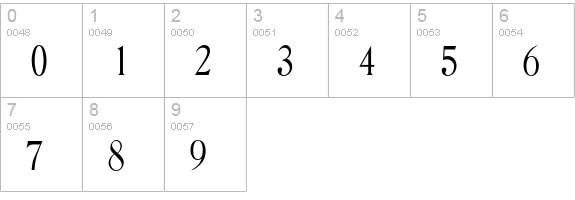
Denver-Light is a refined, elegant variant in the Denver typeface family \xE2\x80\x94 well suited to elegant body text, refined sub-headings, and luxury branding.
Denver-Light font is a sleek and modern typeface that exudes elegance and sophistication. Its clean lines and subtle curves make it perfect for a wide range of design projects, from branding to editorial layouts. This versatile font offers a sense of refinement and professionalism, making it an excellent choice for any designer looking to elevate their work. One of the best things about Denver-Light font is that it is available for free download at FontsMarket.com. This means that you can easily access this high-quality font without having to worry about any additional costs. Whether you're working on a personal project or a client's design, Denver-Light font is a fantastic option that will help you achieve your desired aesthetic with ease. Download this beautiful font today and enhance your designs with its timeless appeal.